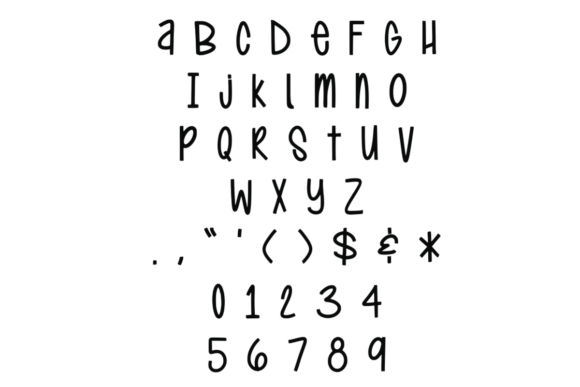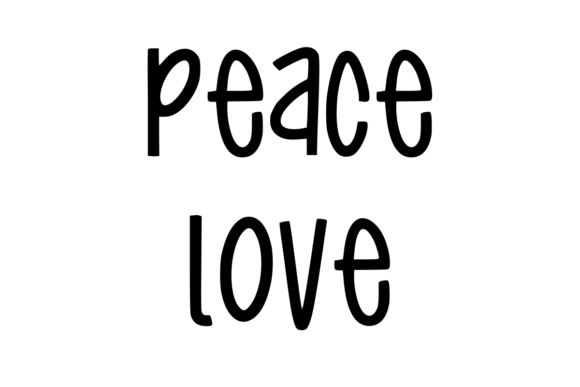
Dw Marker Font: The Perfect Addition to Your Design Arsenal
In the world of design, typography plays a crucial role in conveying messages, expressing creativity, and capturing attention. With the numerous font options available, it can be overwhelming to choose the right one for your project. However, if you’re looking for a modern, friendly, and kind font that can elevate your designs, look no further than the Dw Marker Font.
What is Dw Marker Font?
Dw Marker Font is a unique and versatile font designed to make your projects stand out. Whether you’re a designer, crafter, student, or social media enthusiast, this font is perfect for a wide range of applications, including crafts, social media posts, presentations, and school-related projects.
Key Features of Dw Marker Font
- Modern and Friendly Design: Dw Marker Font boasts a modern and friendly design that is sure to capture attention. Its kind and approachable feel makes it perfect for projects that require a personal touch.
- Versatile: This font is incredibly versatile and can be used for a wide range of projects, from digital designs to print materials.
- Easily Readable: The Dw Marker Font is designed to be easily readable, making it perfect for body text, headings, and titles.
- Unique and Creative: With its distinctive marker-like feel, this font adds a creative and unique touch to any project.
Use Cases for Dw Marker Font
The Dw Marker Font is an excellent addition to any design arsenal, and its versatility makes it suitable for various projects. Here are some use cases for this fantastic font:
- Crafts: Add a personal touch to your craft projects, such as handmade cards, scrapbooking, and DIY decorations.
- Social Media Posts: Elevate your social media game with eye-catching posts that feature the Dw Marker Font.
- Presentations: Make your presentations more engaging and interactive with this unique font.
- School-Related Projects: Use the Dw Marker Font for school projects, such as posters, reports, and presentations, to add a creative and playful touch.
Why Choose Dw Marker Font?
With so many fonts available, why choose the Dw Marker Font? Here are some compelling reasons:
- Stand Out from the Crowd: This font is designed to make your projects stand out from the crowd, ensuring you grab the attention of your audience.
- Easy to Use: The Dw Marker Font is incredibly easy to use, even for those without extensive design experience.
- High-Quality Design: This font is designed with high-quality and precision, ensuring it looks great in any project.
Tips for Using Dw Marker Font
To get the most out of the Dw Marker Font, here are some valuable tips:
- Experiment with Colors: Try pairing the Dw Marker Font with different colors to add an extra creative touch to your projects.
- Mix and Match: Combine the Dw Marker Font with other fonts to create a unique and visually appealing design.
- Pay Attention to Size: Ensure the font size is suitable for your project, and adjust as needed to maintain readability.
In conclusion, the Dw Marker Font is an excellent addition to any design arsenal. Its modern, friendly, and kind design makes it perfect for a wide range of projects, from crafts to social media posts. With its versatility, readability, and unique feel, this font is sure to elevate your designs and make them stand out. So why wait? Give the Dw Marker Font a try today and discover the difference it can make in your designs!